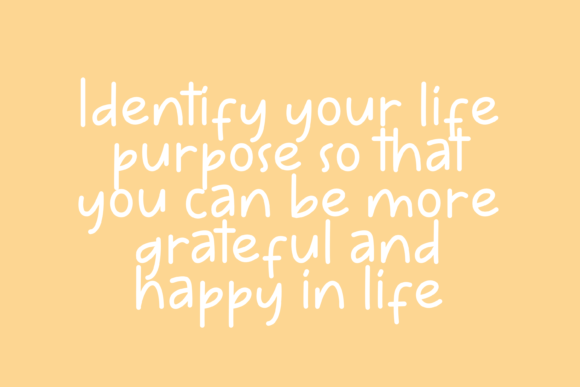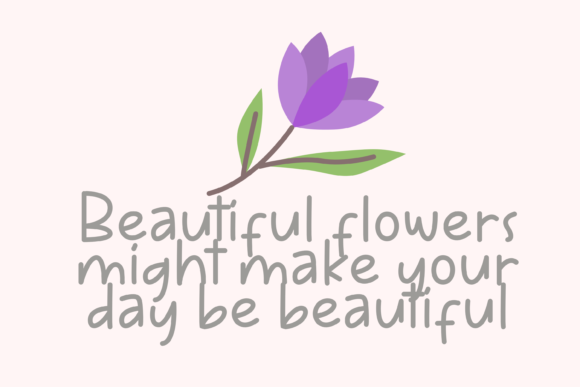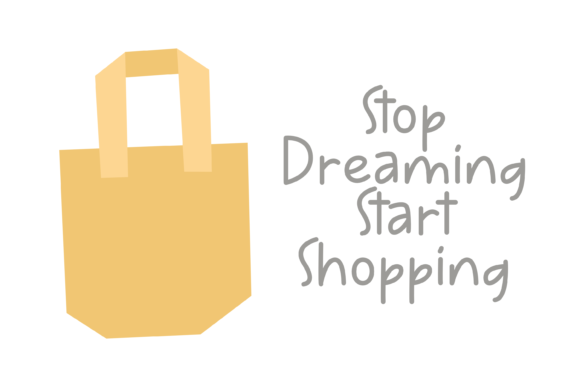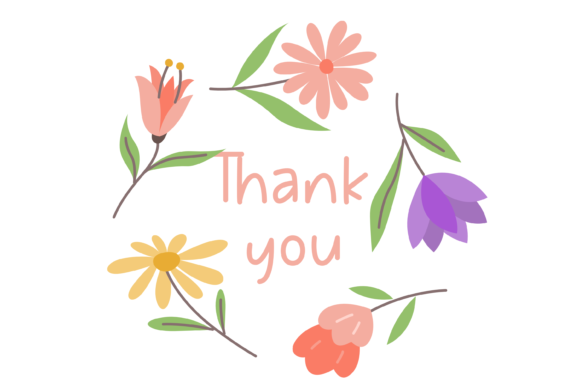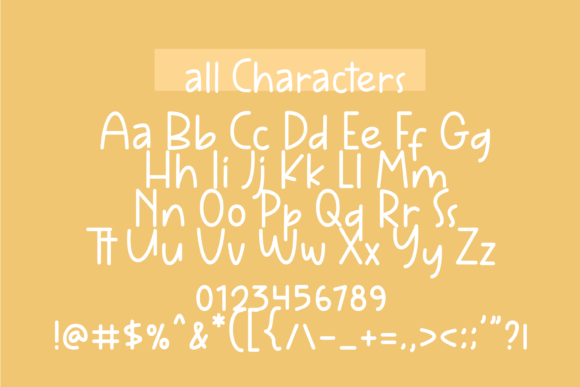
Introduction to Jumps Higher Font
Jumps Higher is a tiny handwritten font that can be used for all chalkboard quotes or teaching material.
Its authentic handwritten look and feel will add a personal and realistic feel to your designs .
Key Features of Jumps Higher Font